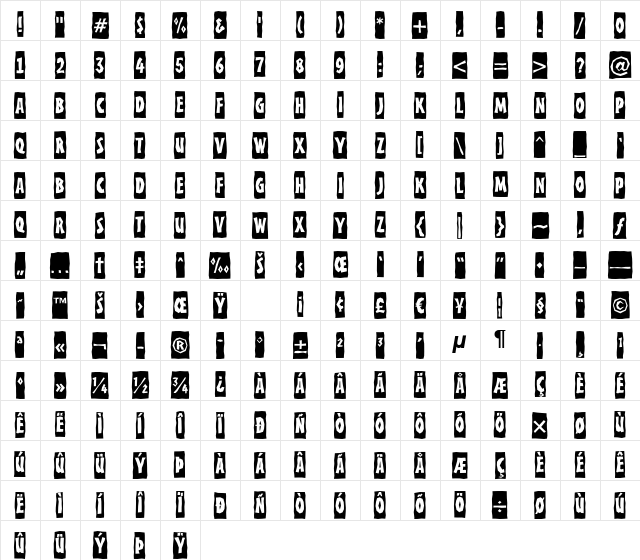
a_FrudgerCmBrk Regular
Designer: W.Chufarofsky & M.Slutsker
Design Context for a_FrudgerCmBrk
a_FrudgerCmBrk is a composed and adaptable typeface that performs quietly and consistently across a wide range of design contexts.
Pro Tip: Use a_FrudgerCmBrk in both headline and body roles to test its range before committing to a single application.